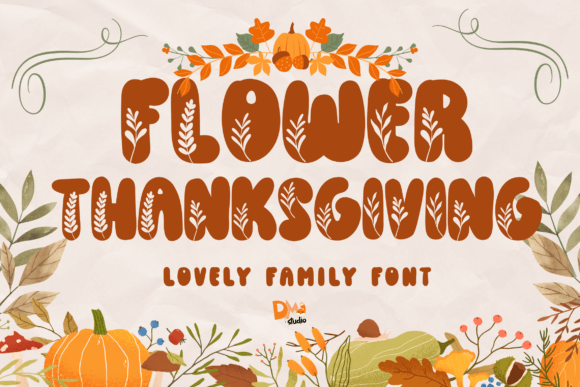
Get Ready to Fall in Love with the Flower Thanksgiving Font
As you sit down to plan your Thanksgiving designs, a spark of creativity hits you – what if you could capture the essence of the fall season in a single, elegant font? That’s where the Flower Thanksgiving Font comes in, a delightful display typeface that embodies the warmth and beauty of autumn.
This spirited font family is designed to add a touch of quintessential fall flair to all your projects, from Thanksgiving invitations to social media posts and greeting cards. With its robust, ornamental lettering and floral motifs, the Flower Thanksgiving Font brings a genuine, earthy charm to every creation, perfectly harmonizing with the rich hues and themes of fall.
- Unique Characteristics: The “Flower Thanksgiving Font” features a hand-drawn design with intricate floral patterns, giving it a unique and festive touch perfect for Thanksgiving-themed designs.
- Font Family: The font family consists of 100 glyphs, including uppercase and lowercase letters, numbers, and punctuation marks, making it a versatile choice for various design projects.
Flower Thanksgiving Font Review
Overall, I think the Flower Thanksgiving Font is a nice addition to any designer’s toolkit. Here are a few things that I think work well:
- ✨ Unique and playful design: The font’s use of floral elements to create a Thanksgiving theme is really clever and eye-catching.
- ✨ Wide range of applications: This font can be used for a variety of designs, from greeting cards to social media posts, and even wedding invitations.
- ✨ Good for casual use: The font’s casual, handwritten feel makes it perfect for everyday use, like creating social media posts or adding a personal touch to a blog post.
- ⚠️ Limited scalability: While the font looks great at small sizes, it can become blurry and hard to read when scaled up.
- ⚠️ Not ideal for formal use: The font’s playful, handwritten feel may not be suitable for formal designs, like business reports or academic papers.
Overall, I think the Flower Thanksgiving Font is a fun and creative addition to any designer’s toolkit. While it may not be suitable for all types of designs, it’s perfect for casual, playful projects where a little whimsy is needed.
To get the most out of the Flower Thanksgiving Font, consider the following tips:
- Use the font in conjunction with floral or autumn-themed graphics for a cohesive look.
- Use the font to create a sense of warmth and coziness in your designs.
The Flower Thanksgiving Font is perfect for:
- Thank-you cards and invitations.
- Autumn-themed decorations and graphics.